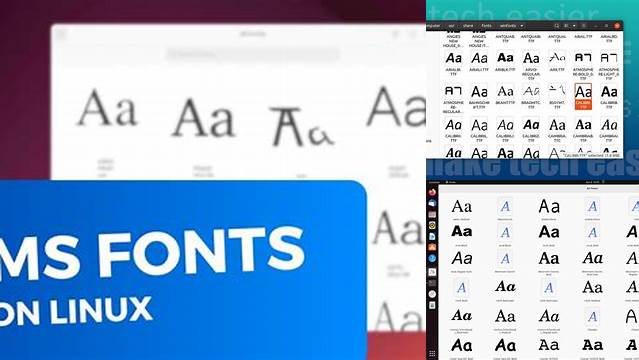
Why Install Microsoft Fonts on Linux?
So, you might be wondering, why bother installing Microsoft fonts on Linux? That’s a totally valid question! The truth is, while Linux comes with a fantastic selection of open-source fonts, there are times when you need the Microsoft fonts for compatibility and consistency. Think about it: have you ever opened a document created in Microsoft Word on your Linux system and seen weird formatting issues? Chances are, it's because the document uses fonts that aren't installed on your system. This is where installing Microsoft fonts becomes crucial.
First and foremost, compatibility is key. Many documents, especially in professional and academic settings, are created using Microsoft fonts. When you open these documents on a Linux system without the corresponding fonts, your system will substitute them with other fonts, which can lead to misaligned text, broken layouts, and an overall unprofessional appearance. By installing Microsoft fonts, you ensure that these documents look exactly as they were intended, preserving the original formatting and design. This is especially important if you're collaborating with others who use Microsoft Office or if you need to submit documents that adhere to specific formatting guidelines.
Beyond compatibility, aesthetics play a significant role. Microsoft fonts like Arial, Times New Roman, and Calibri are widely recognized and considered standard for professional communication. They have a polished, clean look that many users prefer. While Linux has its own set of beautiful fonts, having Microsoft fonts in your arsenal gives you more options to choose from, allowing you to tailor your documents and presentations to specific audiences and purposes. For instance, a formal report might look better in Times New Roman, while a presentation might benefit from the clean lines of Calibri or Arial. Having these options ensures you can always choose the perfect font for the job.
Another reason to install Microsoft fonts is to ensure consistency across platforms. If you frequently switch between Linux and Windows systems, having the same fonts installed on both platforms ensures that your documents look the same regardless of where you open them. This is particularly important in collaborative environments where multiple people might be working on the same document using different operating systems. By using Microsoft fonts, you can avoid the frustration of seeing your carefully formatted work look different on another person's computer. It’s all about creating a seamless experience, no matter what system you’re using.
Furthermore, certain web applications and services are designed with Microsoft fonts in mind. If you’re working with web-based document editors or online collaboration tools, having Microsoft fonts installed can improve the rendering of text and ensure that everything looks as it should. This can be especially important for designers, writers, and anyone who relies on web-based tools for their work. You want to make sure your work looks its best, no matter where it's being viewed.